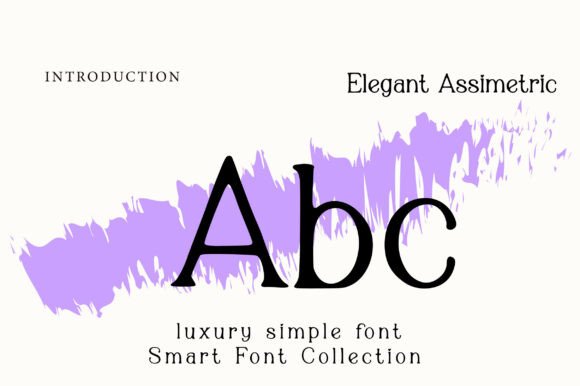
Elegant Asymmetric Font: Elevate Your Designs with Refined Vintage Charm
In the world of typography, fonts play a crucial role in conveying the tone and personality of a brand or design. For those seeking a classy and sophisticated look, the Elegant Asymmetric font is an excellent choice. This stunning display serif font boasts a refined vintage charm, subtle quirky details, and a unique blend of elegance and expressiveness.
What is Elegant Asymmetric Font?
Elegant Asymmetric is a carefully crafted display serif font that combines elegant proportions with slightly irregular, asymmetric strokes. This thoughtful design approach gives the letters a handmade, editorial personality that sets them apart from more traditional fonts. The contrast between smooth curves and crisp serifs creates a sophisticated look that is both refined and distinctive.
Key Features of Elegant Asymmetric Font
- Refined Vintage Charm: Elegant Asymmetric font exudes a sense of classic sophistication, making it perfect for designs that require a touch of vintage elegance.
- Subtle Quirky Details: The font’s subtle irregularities add a touch of whimsy and personality to your designs, setting them apart from more generic fonts.
- Elegant Proportions: The font’s carefully crafted proportions ensure that it remains highly legible, even at larger sizes.
- Asymmetric Strokes: The font’s asymmetric strokes add a touch of handmade charm, giving your designs a unique and expressive feel.
Ideal Use Cases for Elegant Asymmetric Font
Elegant Asymmetric font is an incredibly versatile font that can be used in a wide range of design applications, including:
- Luxury & Boutique Branding: Add a touch of sophistication and elegance to your luxury brand’s identity with Elegant Asymmetric font.
- Logos & Wordmarks: Create a lasting impression with a custom logo or wordmark designed with Elegant Asymmetric font.
- Editorial / Magazine Headlines: Add a touch of class and sophistication to your editorial designs with Elegant Asymmetric font.
- Book Covers & Title Design: Make your book cover or title design stand out with the Elegant Asymmetric font’s unique blend of elegance and expressiveness.
- Wedding Invitations & Stationery: Add a touch of romance and sophistication to your wedding invitations and stationery with Elegant Asymmetric font.
- Packaging & Labels: Elevate your product packaging and labels with the Elegant Asymmetric font’s refined vintage charm.
- Modern Vintage Typography: Create stunning modern vintage typography with Elegant Asymmetric font, perfect for designs that require a touch of classic sophistication.
Why Choose Elegant Asymmetric Font?
With Elegant Asymmetric font, you can bring refined elegance and distinctive personality to your designs. This font is perfect for designers and crafters seeking to add a touch of sophistication and whimsy to their work. Whether you’re designing a luxury brand identity, a stylish title, or a beautiful wedding invitation, Elegant Asymmetric font is an excellent choice.
In conclusion, Elegant Asymmetric font is a stunning display serif font that offers a unique blend of elegance, expressiveness, and sophistication. With its refined vintage charm, subtle quirky details, and asymmetric strokes, this font is perfect for designers and crafters seeking to elevate their designs. Whether you’re working on a luxury brand identity, editorial design, or packaging project, Elegant Asymmetric font is an excellent choice.